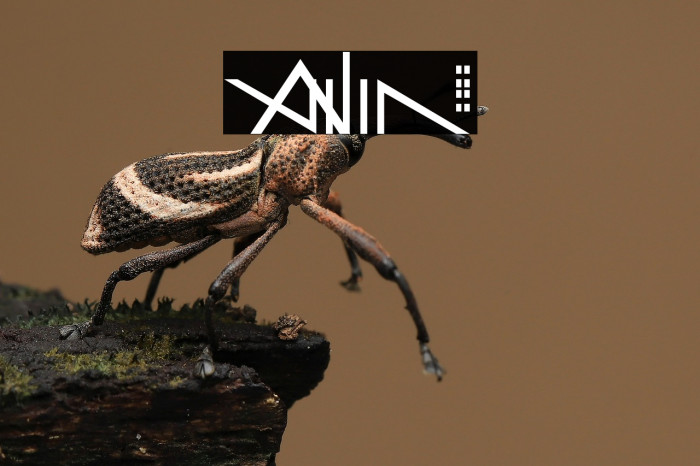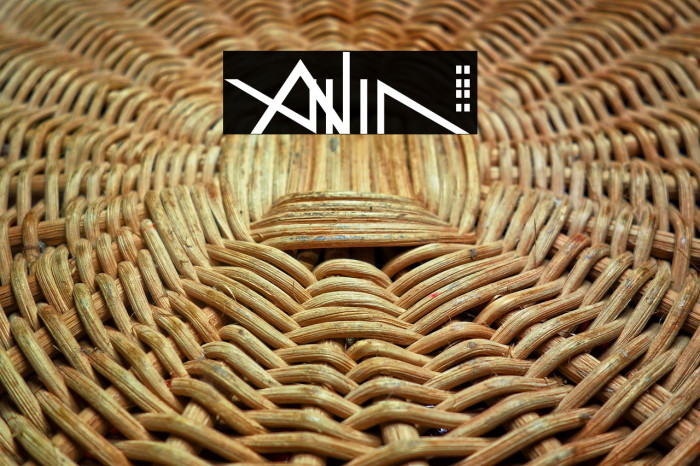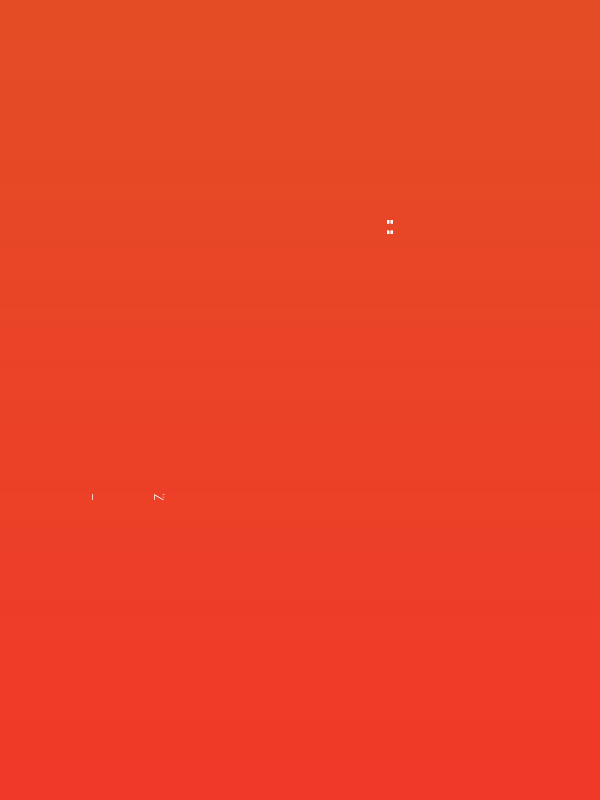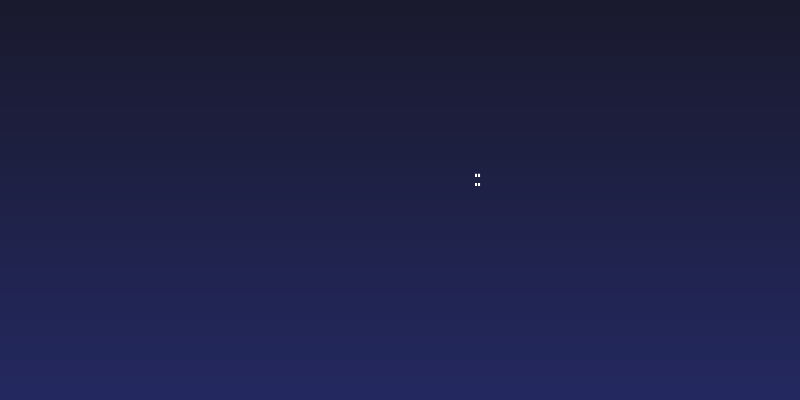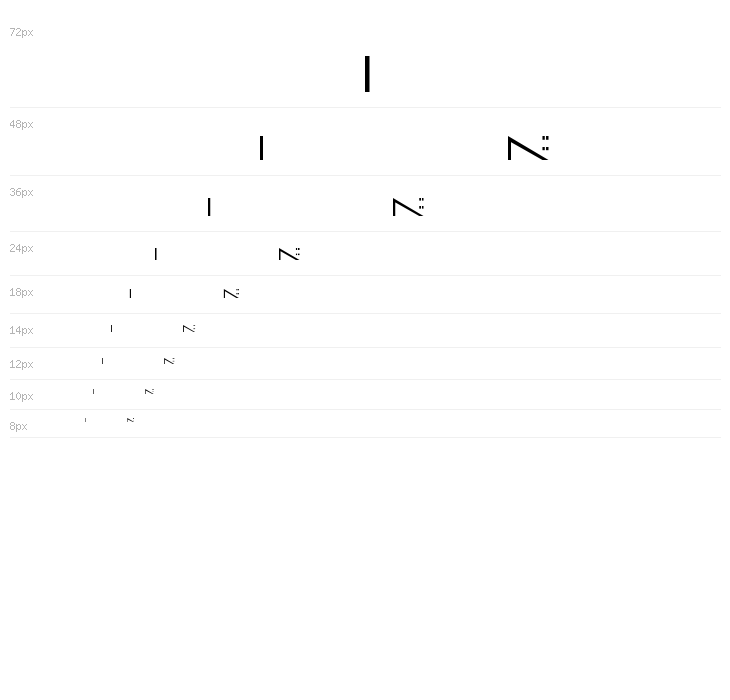
vilain:: Font
vilain:: Description
This font features a highly stylized and abstract design, characterized by its geometric shapes and minimalistic lines. The letters are constructed using a combination of sharp angles and straight lines, creating a futuristic and avant-garde appearance. The font lacks traditional curves, opting instead for a more mechanical and structured look. The use of negative space is prominent, adding to its modern and clean aesthetic. This design is ideal for projects that require a bold and unconventional typeface, making a strong visual impact.
| Use Case | Logos, Headlines |
| Proposed Projects | Ideal for modern branding, tech-related projects, futuristic posters, and digital media. |